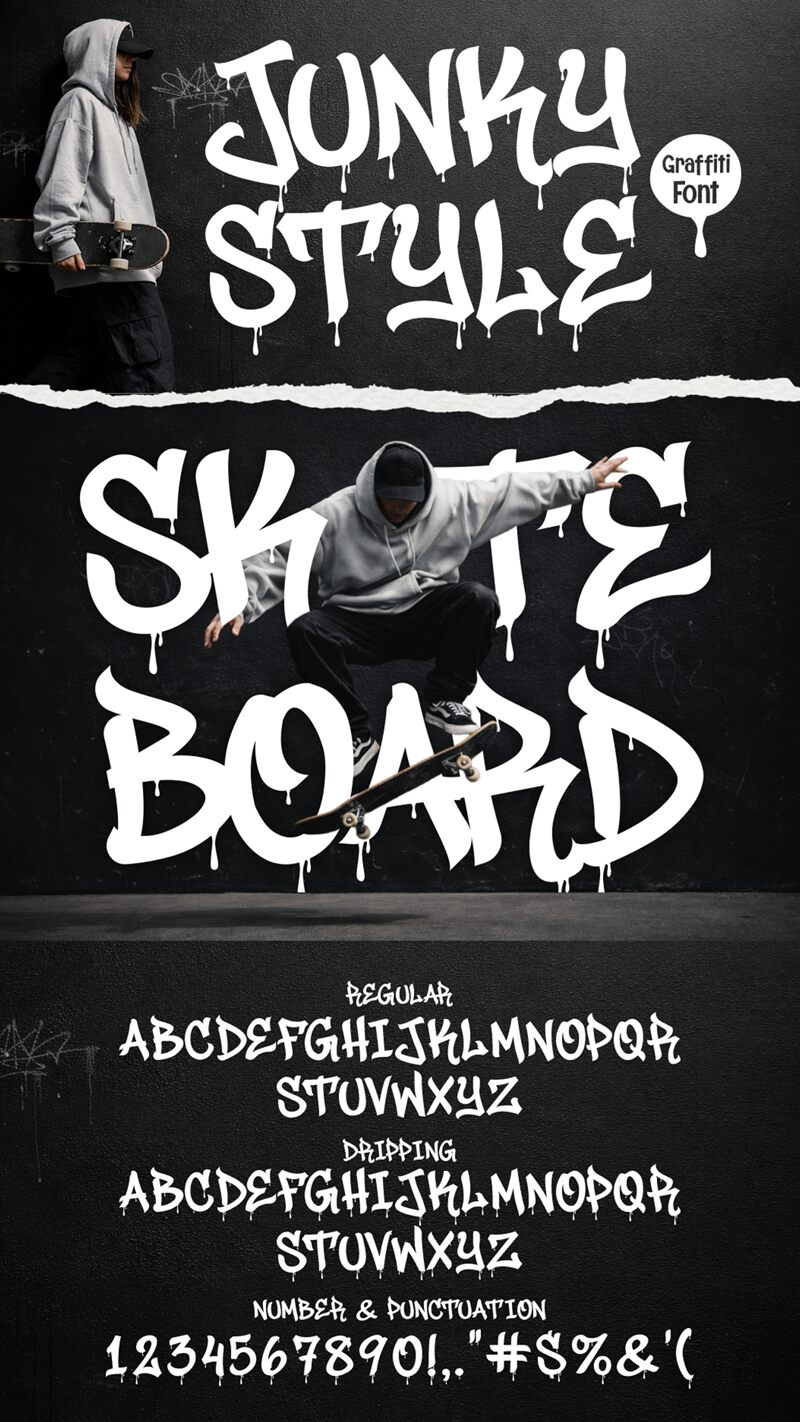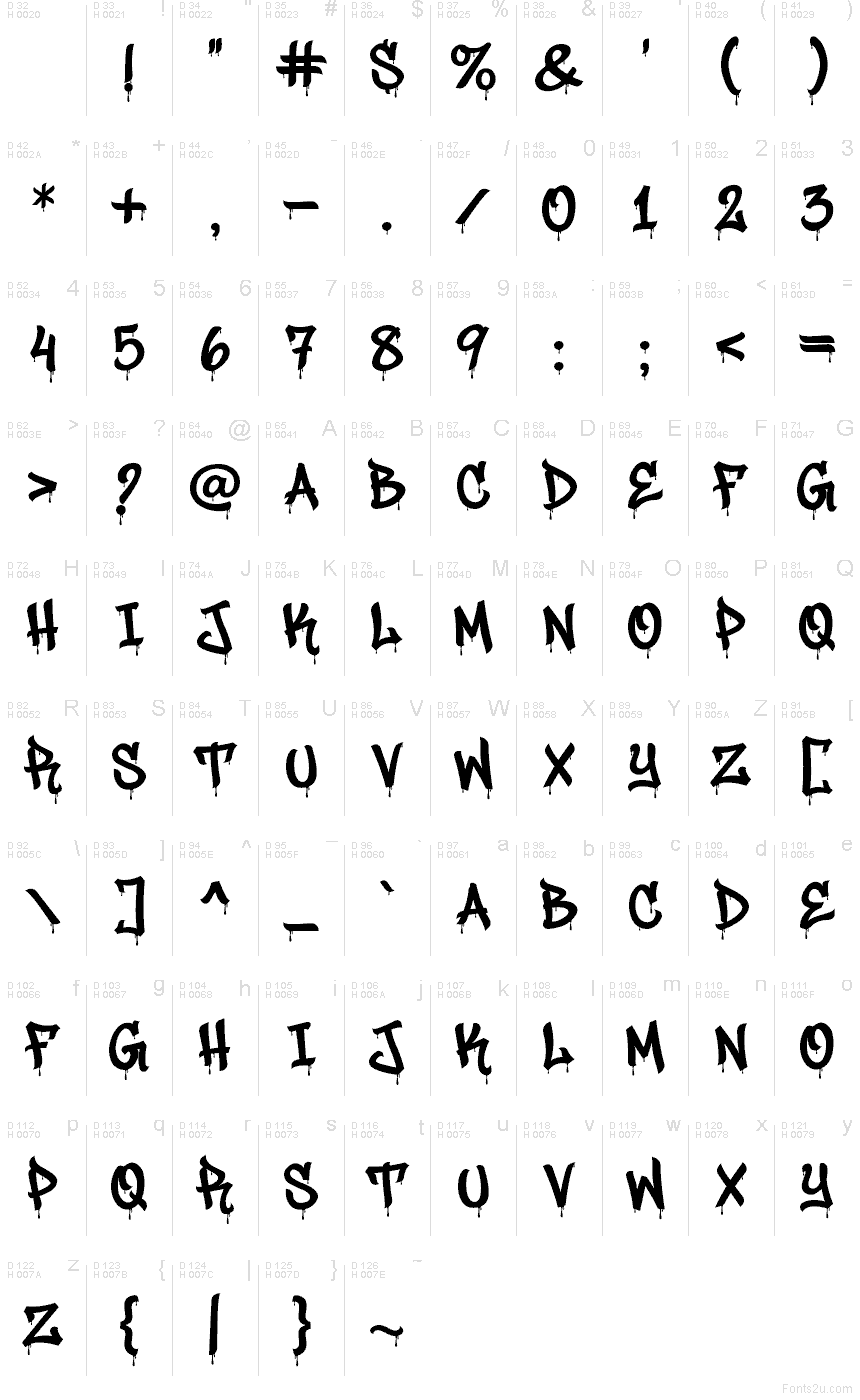
Junky Style Drip Drip by Sipanji and Figuree is a free graffiti script marked by irregular capitals and a jagged street-art silhouette. Sharp wedges cut through broad strokes, and swollen curves keep the lettering rough. Long paint drips form its signature.
Streetwear and skate audiences are the natural match for this aggressive, hand-painted look. It suits apparel graphics, music posters, and urban event campaigns shaped by spray-paint imagery. On youth-focused packaging, the dripping letters can become the brand mark.